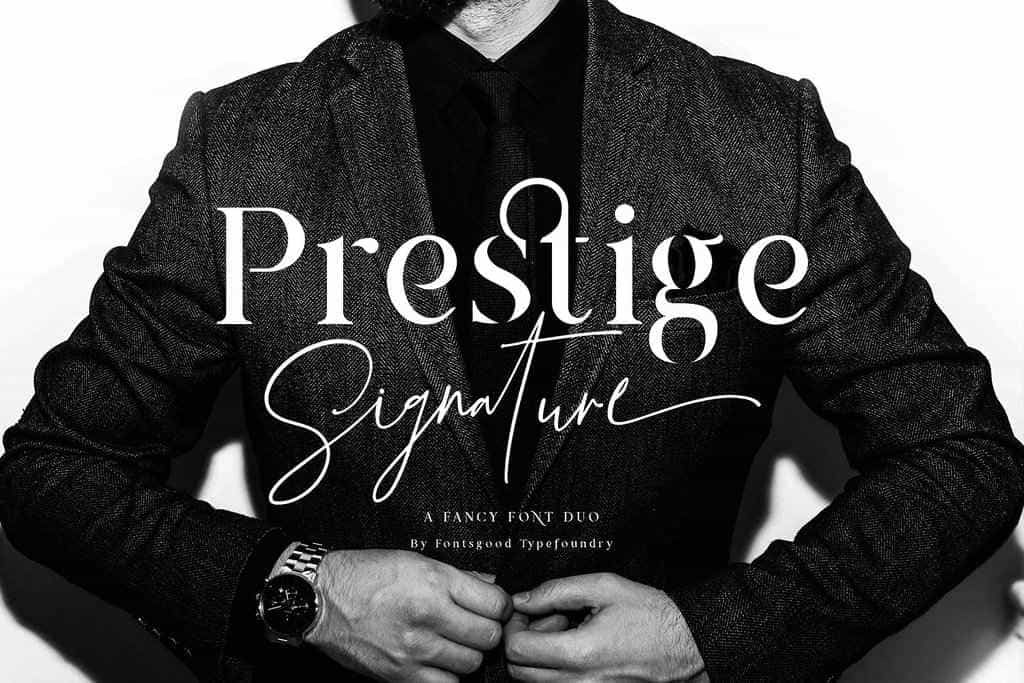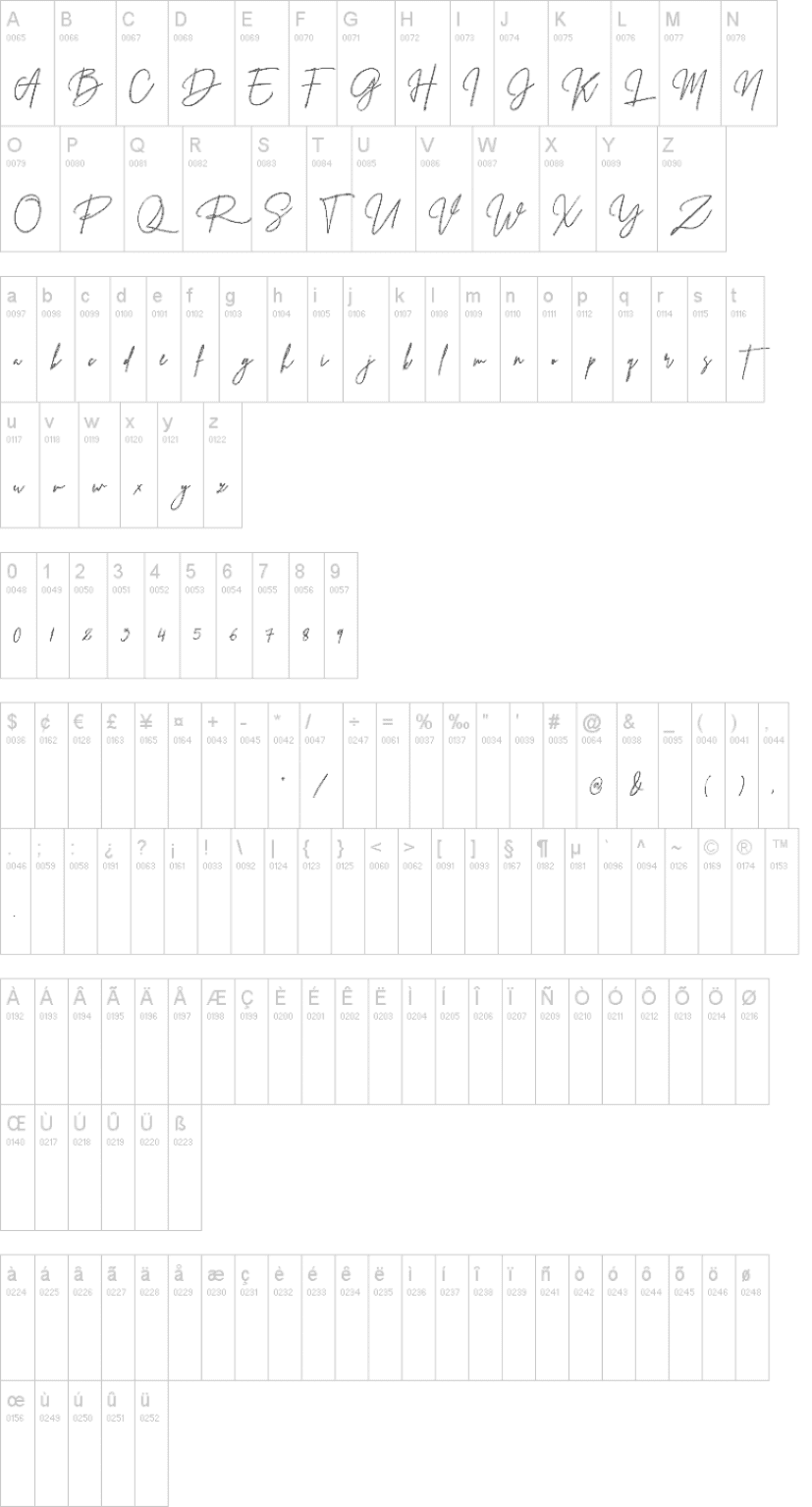
Prestige Signature Script is another type of script font that can be obtained at Fontsgood that fully meets the needs of personal use and download for free. Moreover, it contains the uppercase letters and some additional symbols for both the uppercase and lowercase scripts. Many are free applications with upper/lower case letters and certain specials characters allowed.